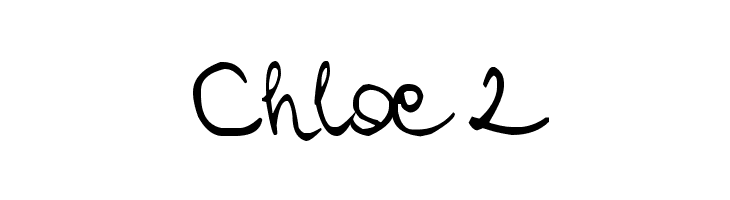
A playful, handwritten font with smooth, rounded edges and consistent stroke width.
Playful and rounded handwritten font.
A playful, handwritten font with rounded, uniform strokes.